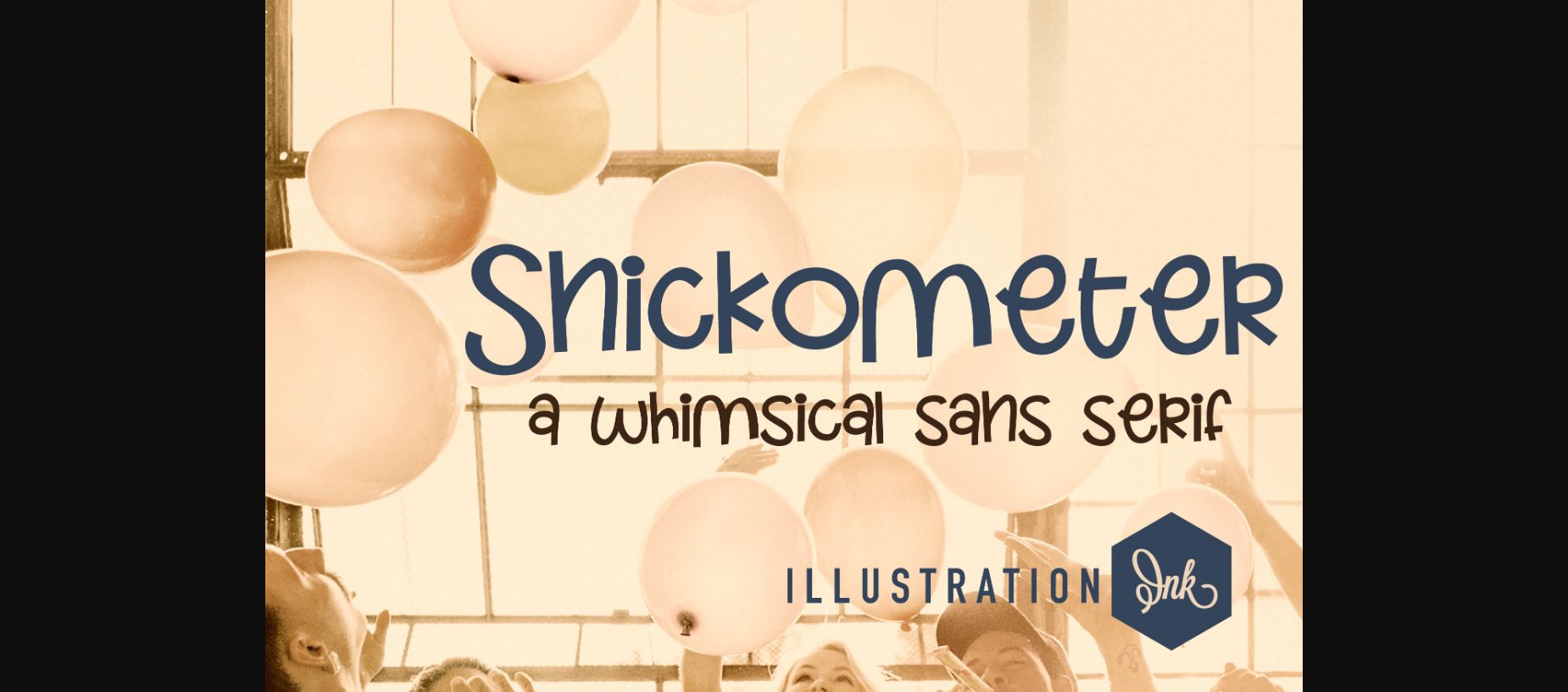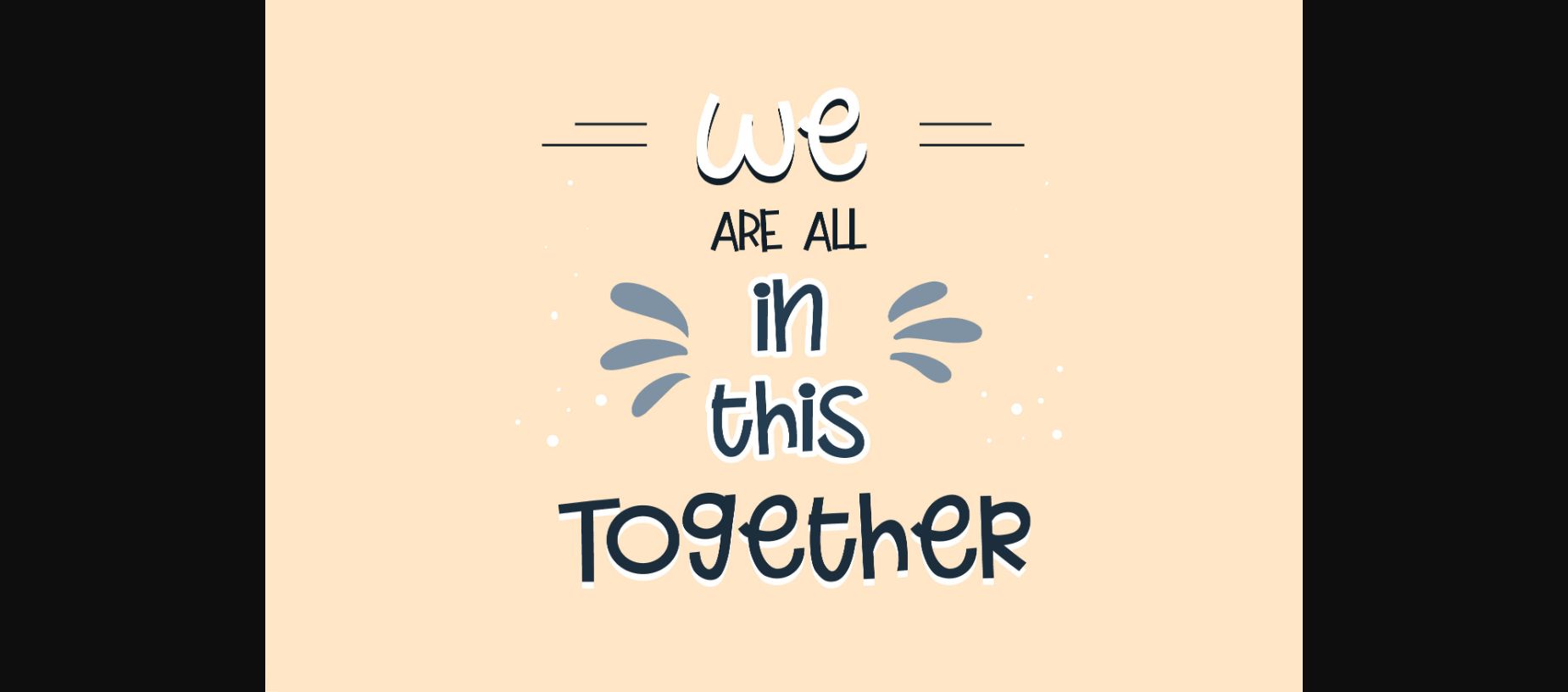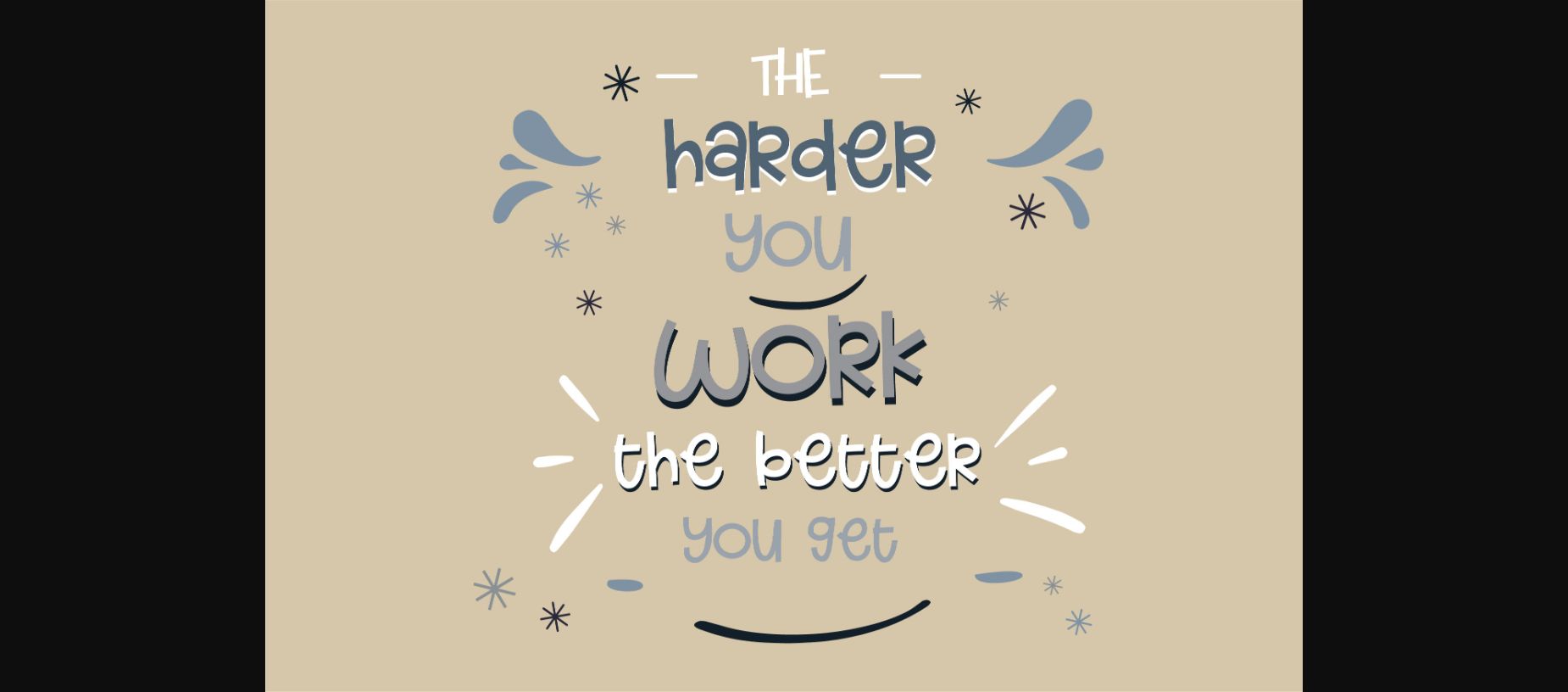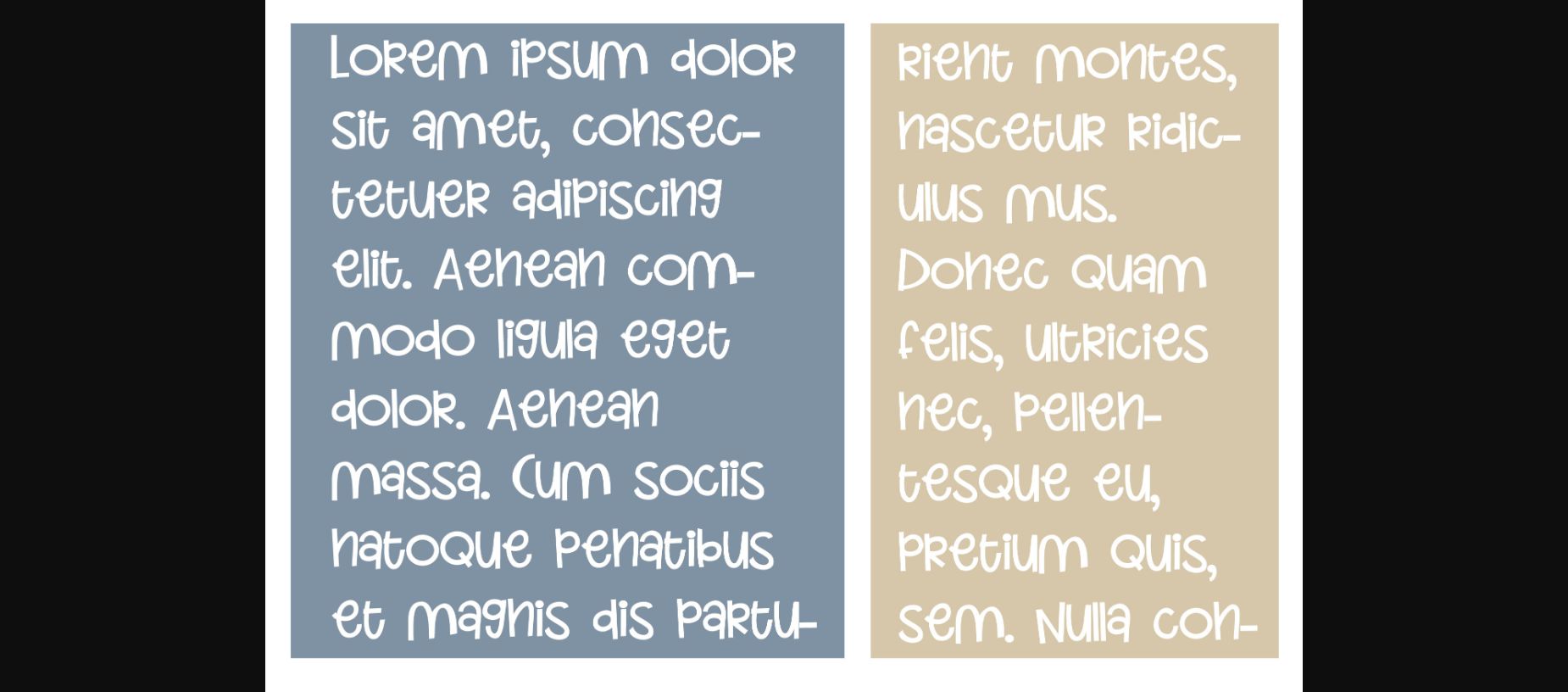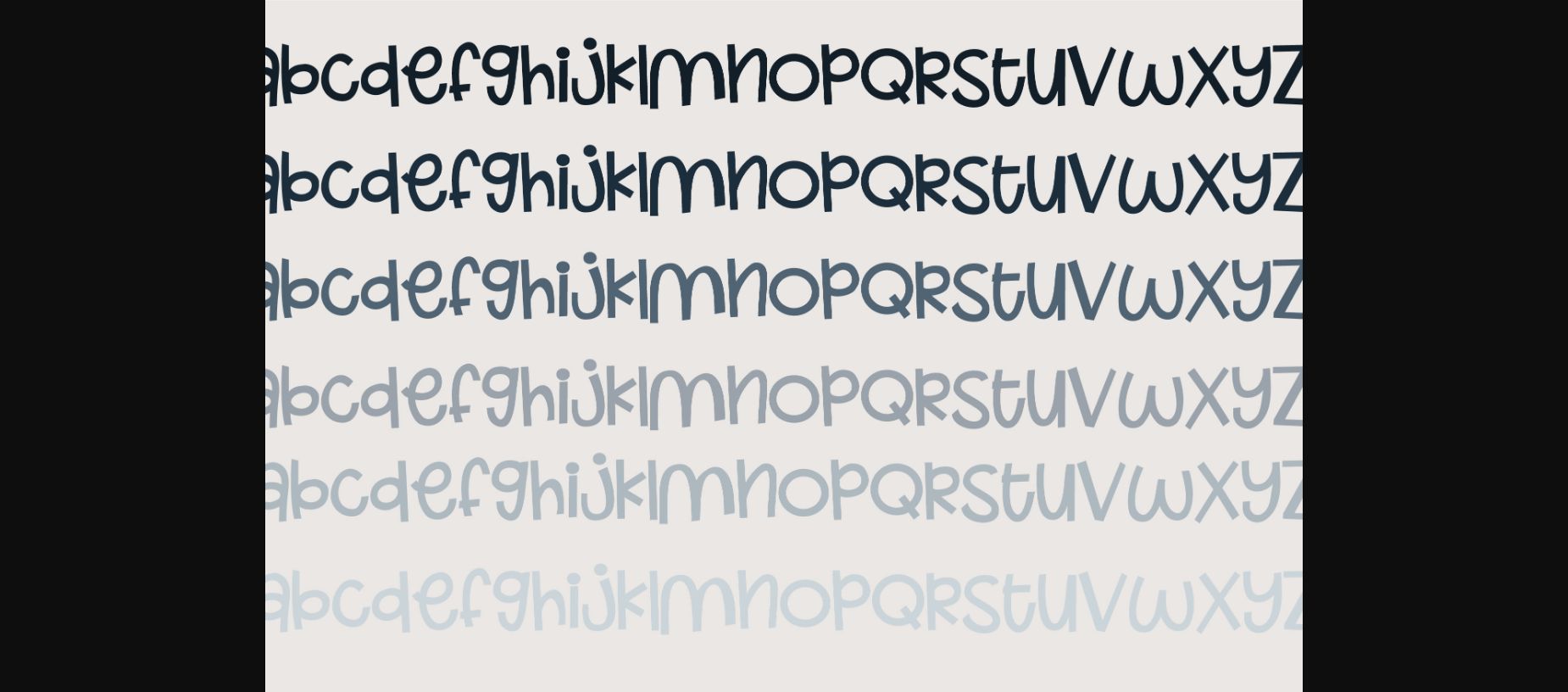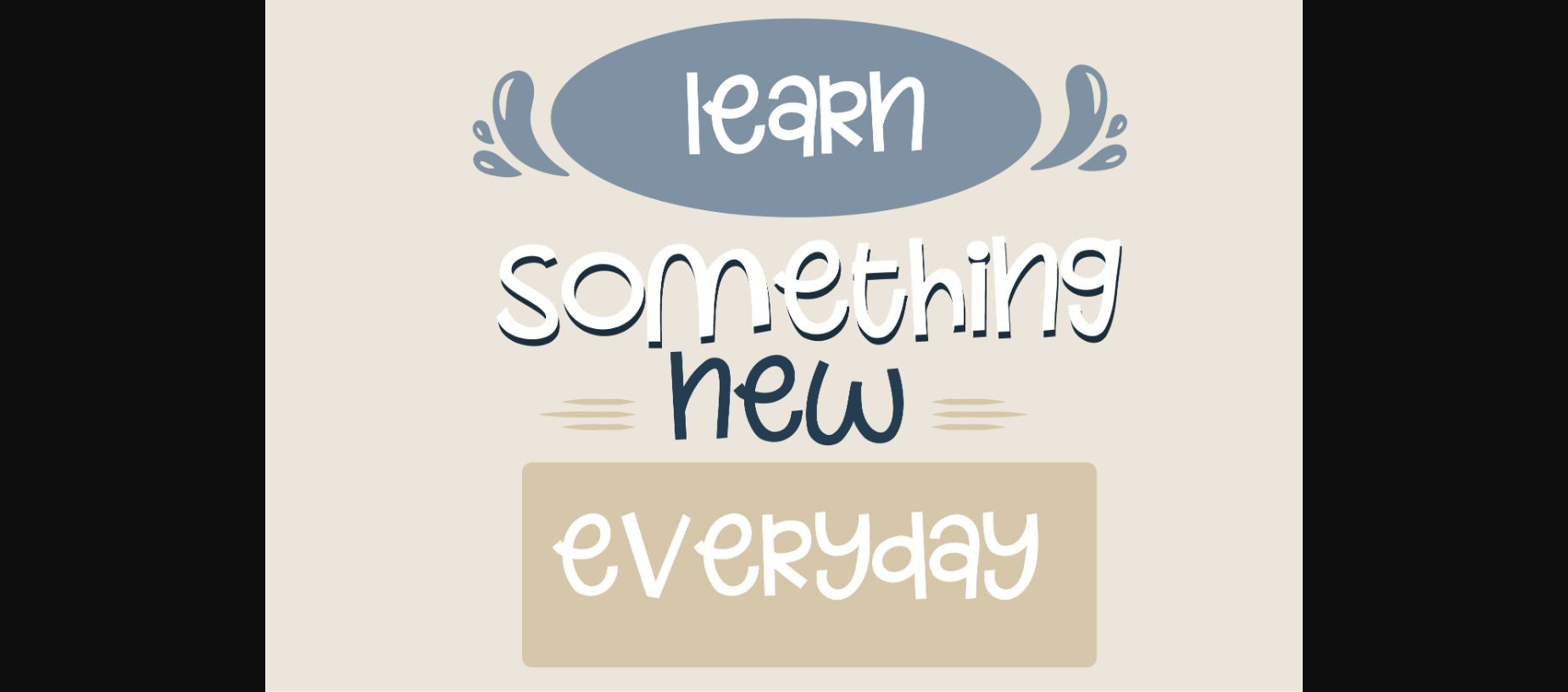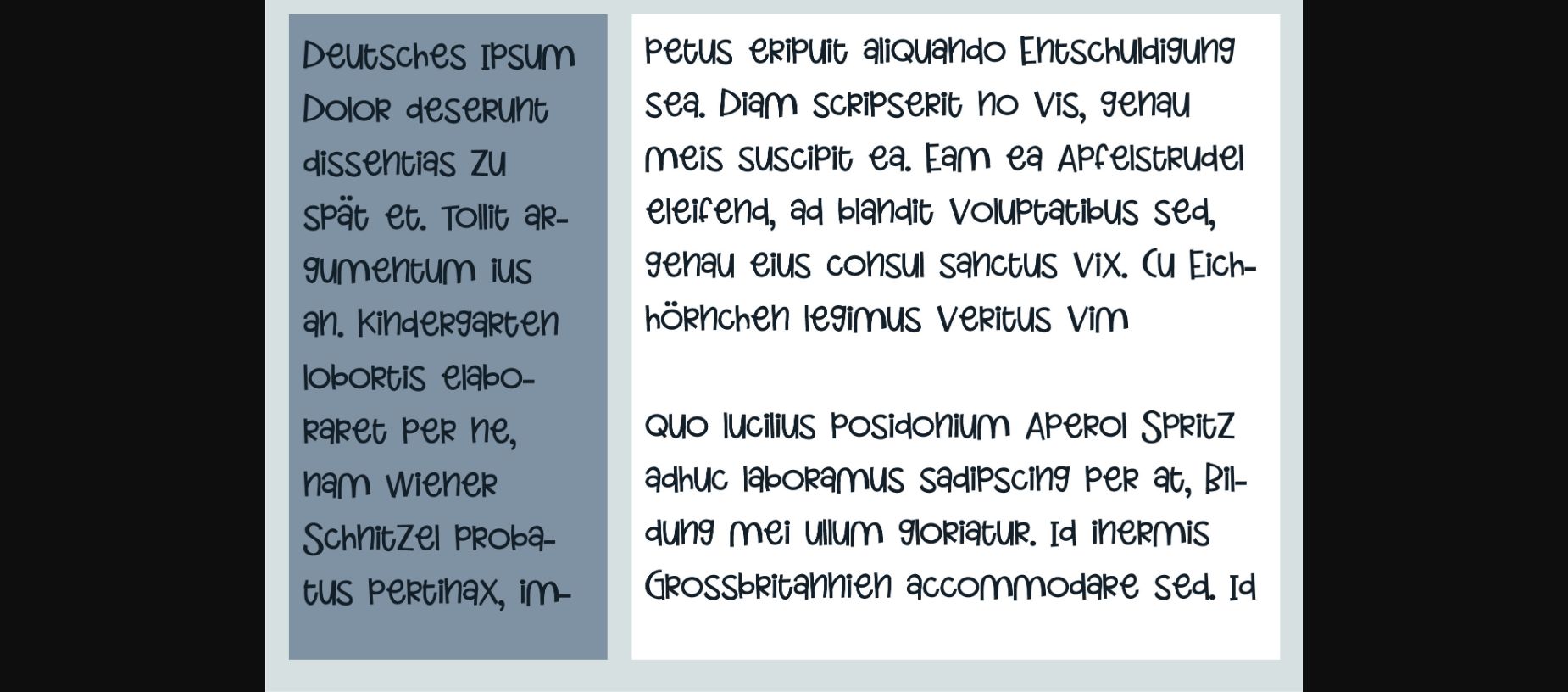
Snickometer is a chic, slim and sweet sans serif font. It is perfect for product packaging, branding project, magazine covers, social media, wedding, or just used to express words above the background.